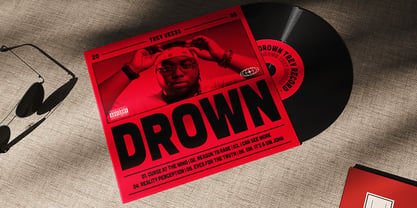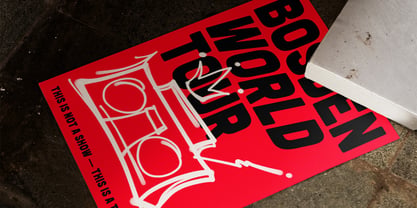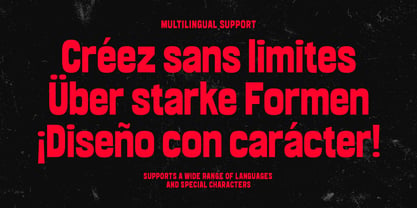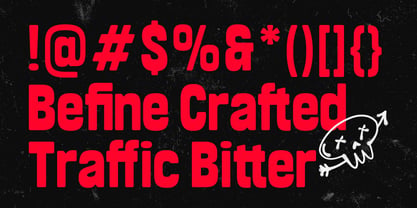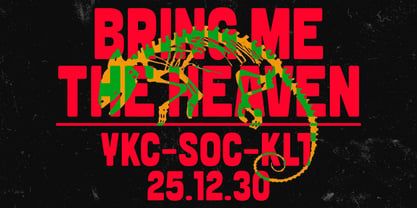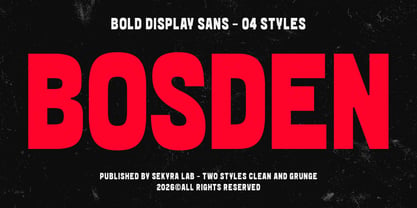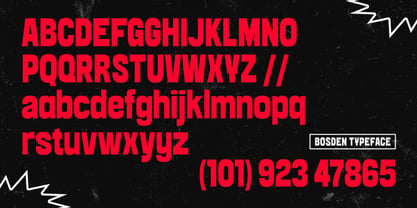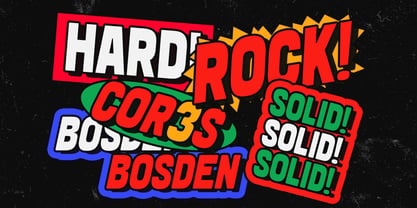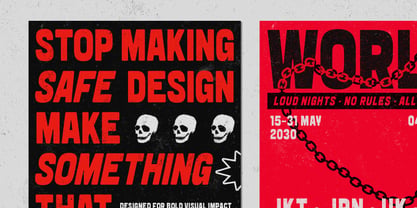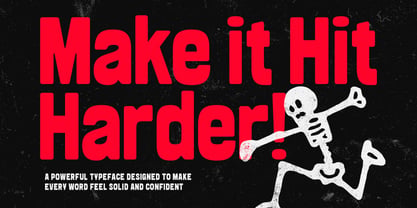
Bosden
by Sekyra Lab
The Bosden Font Family was designed by Hanif Al Irsyad and published by Sekyra Lab. Bosden contains 4 styles and family package options. More about this family
Bosden is a bold and powerful display sans serif designed to deliver strong visual impact and confident presence. With its condensed proportions, solid structure, and clean geometric forms, Bosden is built for designs that need to stand out and hit hard.
This typeface comes with four versatile styles: Regular, Rounded, Oblique, and Rounded Oblique. From sharp and solid to smooth and dynamic, Bosden gives you the flexibility to explore different tones while maintaining a consistent bold identity.
Whether you’re creating posters, branding, streetwear graphics, music artwork, or editorial layouts, Bosden ensures your typography feels loud, clear, and unapologetically strong.
Its clean and modern construction combined with expressive weight makes it perfect for high-impact visuals, urban design aesthetics, and contemporary creative projects.
Bosden